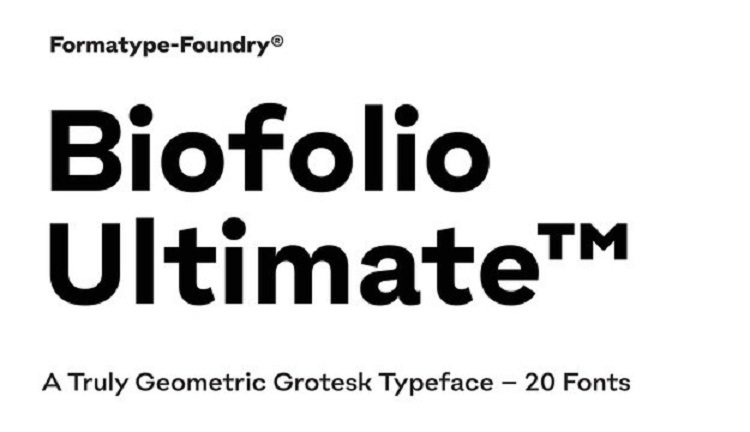
Biofolio Ultimate Sans Serif Font
Biofolio Ultimate Sans Serif Font is a sans serif typeface with elegant characters. This font is perfect for your elegant-themed work, suitable also for elegant vintage.
It is geometric Grotesk typeface exploration proportion and simplicity in typeface, Inspired by the elegant plainness seen in many of the less common 20th centuries sans.